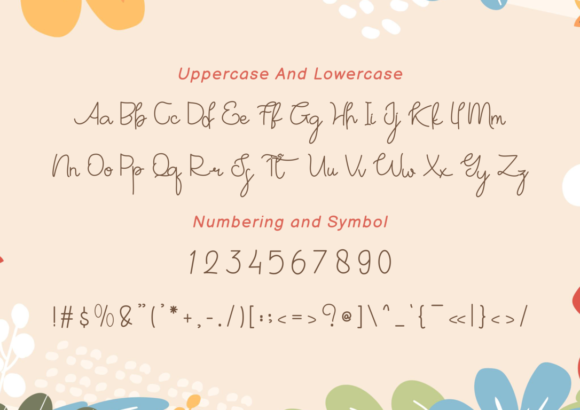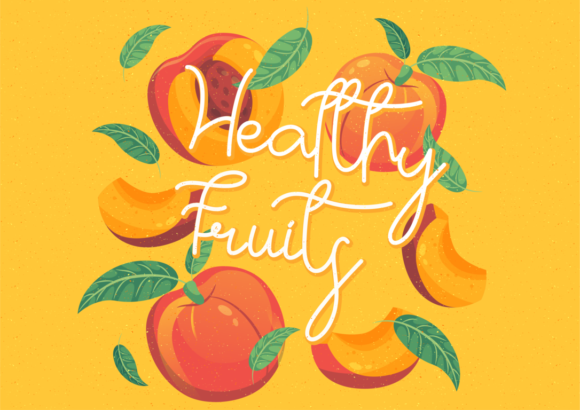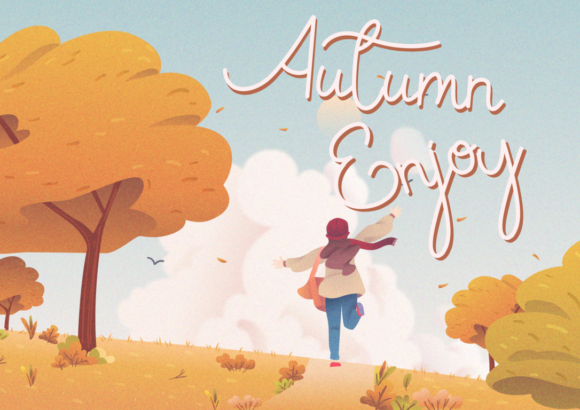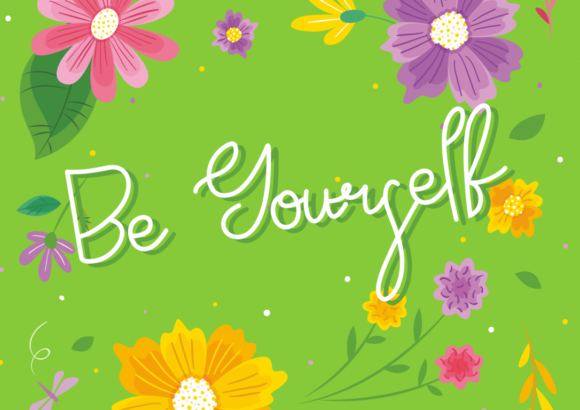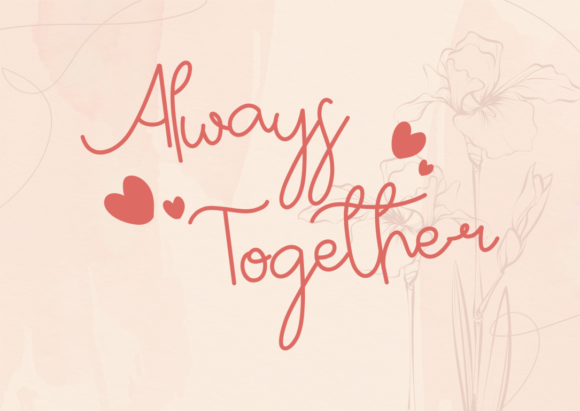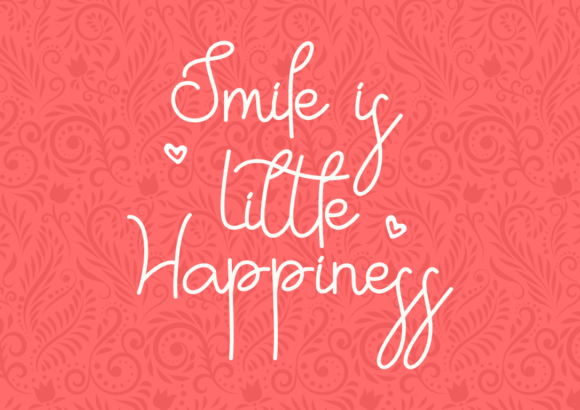
Introduction to Monik Aprilia Font
Monik Aprilia is a fun and quirky script font, beautifully resembling a calligraphic style.
Fall in love with its lovely characters and use them to take your designs to the highest levels .
Key Features of Monik Aprilia Font